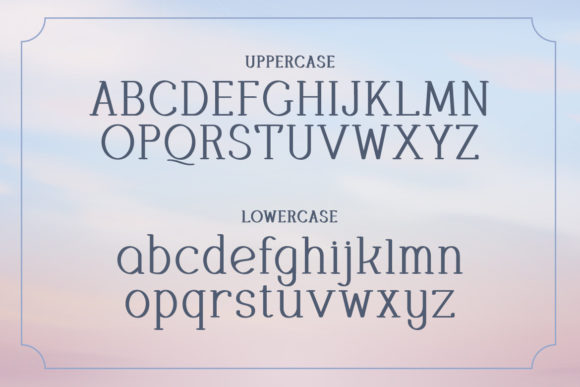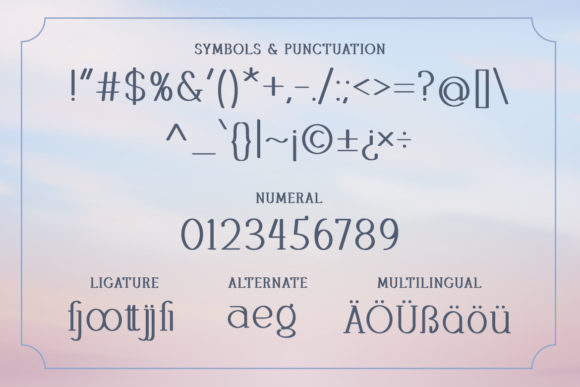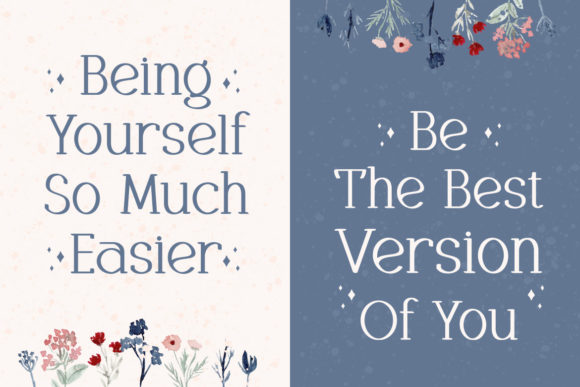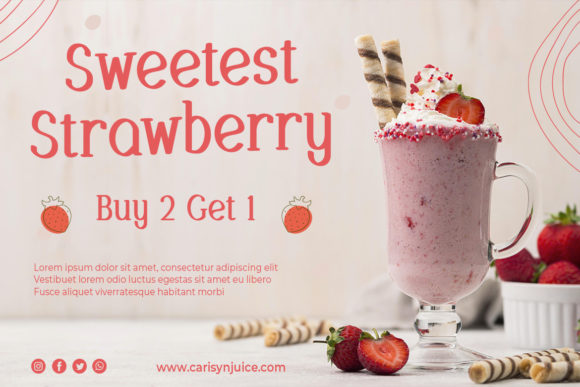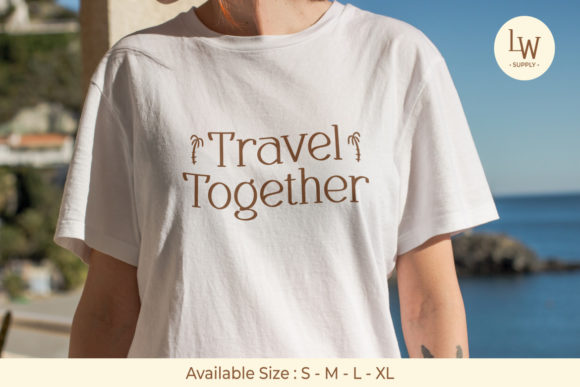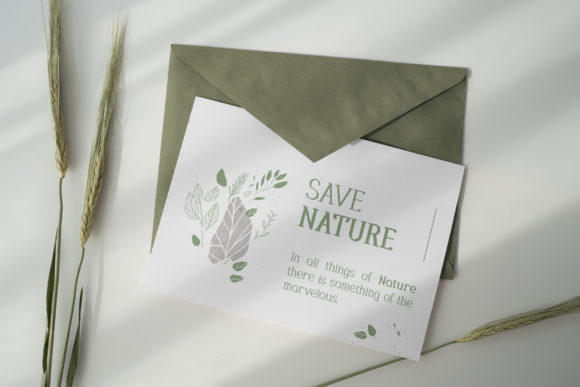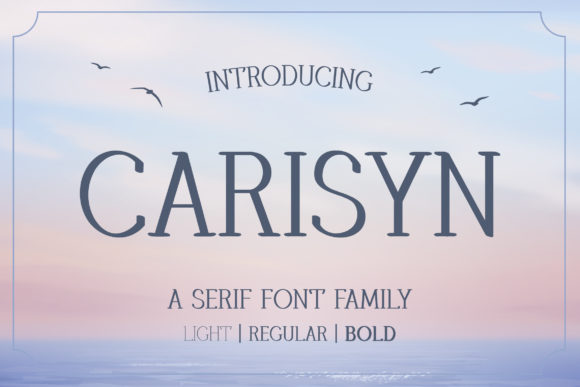
Introducing Carisyn Font: Elevate Your Designs with Elegance
Are you a designer or crafter looking for a font that can add a touch of sophistication to your creations? Look no further than Carisyn Font, a tall, thin, and simple lettered serif font that’s sure to become a valuable asset in your font library. In this article, we’ll explore the features and benefits of Carisyn Font, and how it can elevate your designs to the next level.
The Characteristics of Carisyn Font
Carisyn Font is a serif font that boasts a tall and thin design, making it perfect for adding a touch of elegance to your creations. Its simple lettered design ensures that it’s easy to read and versatile enough to be used in a variety of contexts. Whether you’re designing a logo, a brochure, or a website, Carisyn Font is a great choice.
Why Carisyn Font is a Great Addition to Your Font Library
No matter the topic or theme of your design, Carisyn Font is an incredibly versatile font that can adapt to any style. Its classic and timeless design ensures that it won’t go out of style anytime soon, making it a great investment for designers and crafters. With Carisyn Font, you can create a wide range of designs, from minimalist and modern to elegant and sophisticated.
The Benefits of Using Carisyn Font
So, what are the benefits of using Carisyn Font in your designs? Here are just a few:
- Elegance and Sophistication: Carisyn Font adds a touch of elegance and sophistication to any design, making it perfect for high-end brands and luxury products.
- Versatility: Carisyn Font is versatile enough to be used in a variety of contexts, from digital designs to print materials.
- Readability: Despite its thin design, Carisyn Font is easy to read, making it perfect for body text and captions.
- Timless Design: Carisyn Font has a classic and timeless design that won’t go out of style anytime soon.
How to Use Carisyn Font in Your Designs
So, how can you use Carisyn Font in your designs? Here are a few ideas:
- Logos and Branding: Use Carisyn Font to create a logo or brand identity that’s elegant and sophisticated.
- Print Materials: Use Carisyn Font in brochures, flyers, and other print materials to add a touch of elegance.
- Digital Designs: Use Carisyn Font in digital designs, such as websites and social media graphics, to add a touch of sophistication.
- Crafting and DIY: Use Carisyn Font in crafting and DIY projects, such as handmade cards and invitations.
In conclusion, Carisyn Font is a versatile and elegant font that’s perfect for designers and crafters looking to add a touch of sophistication to their creations. With its tall, thin, and simple lettered design, Carisyn Font is sure to become a valuable asset in your font library. Whether you’re designing a logo, a brochure, or a website, Carisyn Font is a great choice. So why not give it a try and see how it can elevate your designs to the next level?
Key Features of Carisyn Font
- Tall and thin serif font
- Simple lettered design
- Elegant and sophisticated
- Versatile and adaptable
- Easy to read
- Timeless design